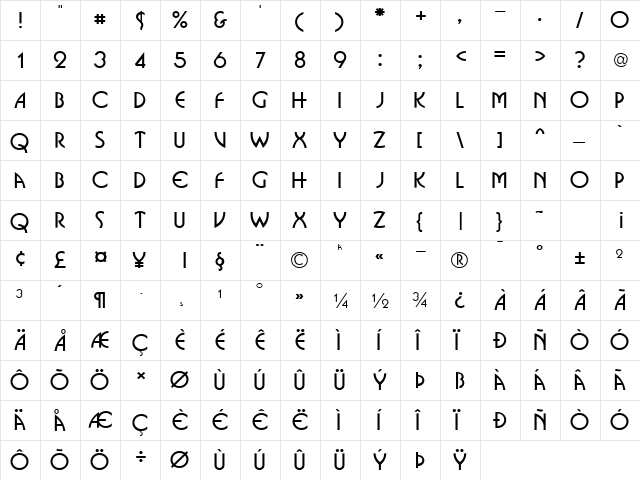
Busso Narrow Bold
Design Context for Busso Narrow Typeface
Busso Narrow takes a measured approach to typography — its balanced proportions and neutral character make it a reliable workhorse for both digital and print work. Its bold stroke weight gives it real presence on the page. The condensed width makes it efficient for tight spaces without sacrificing legibility.